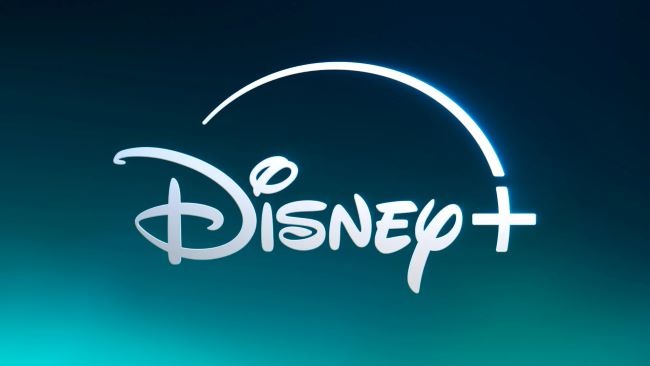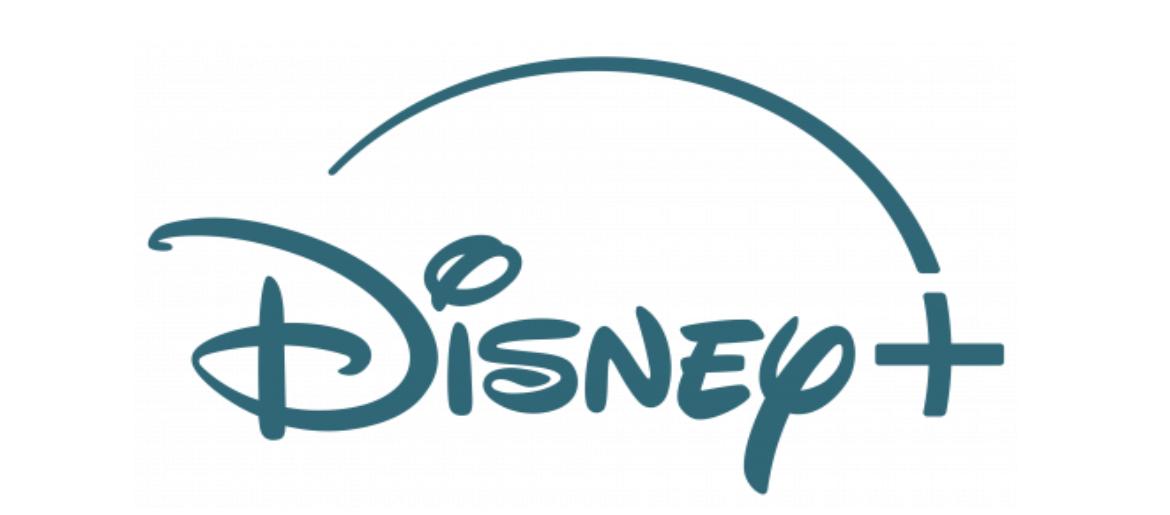
Disney Font
Disney Font has always fascinated because of how instantly magical it feels. Every time you see the castle or the branding, it’s clear how much the Disney logo font contributes to that sense of wonder and imagination. The typeface is more than lettering—it’s a symbol of childhood memories and storytelling. The Disney logo font is based on a custom design inspired by Walt Disney’s signature, giving the brand a personal, whimsical touch while still being bold and recognizable. The Disney logo font works perfectly across movies, merchandise, theme parks, and digital platforms, carrying the same spirit of creativity everywhere.
Compared to other entertainment brands, Disney Font stands out because it combines nostalgia with timeless charm. That’s why it resonates so deeply with audiences around the world. Disney Font proves that typography can capture the magic of a brand and keep it alive for generations.